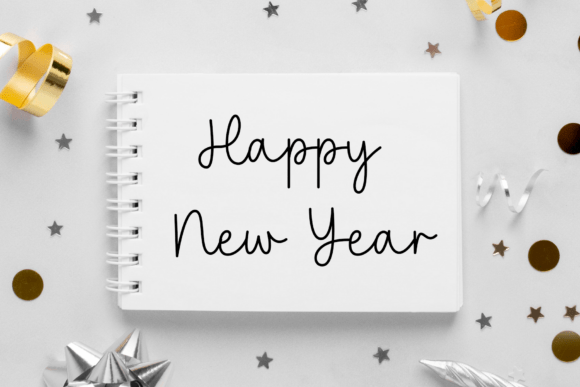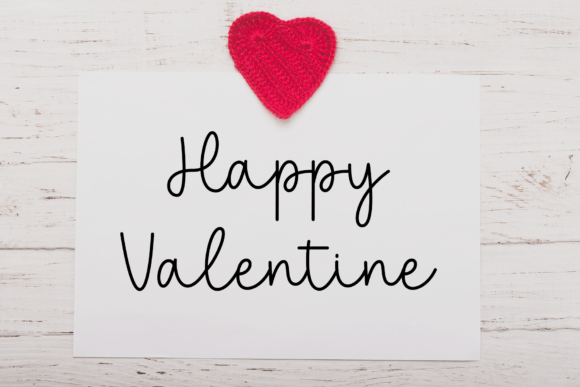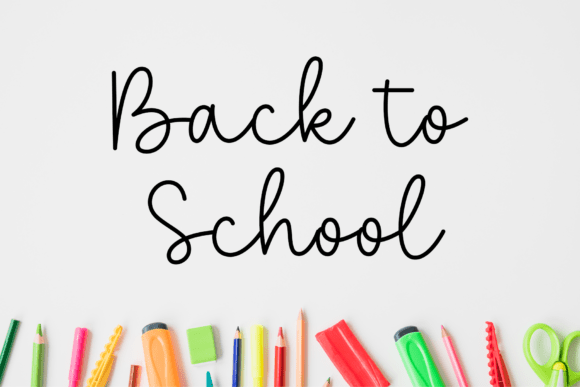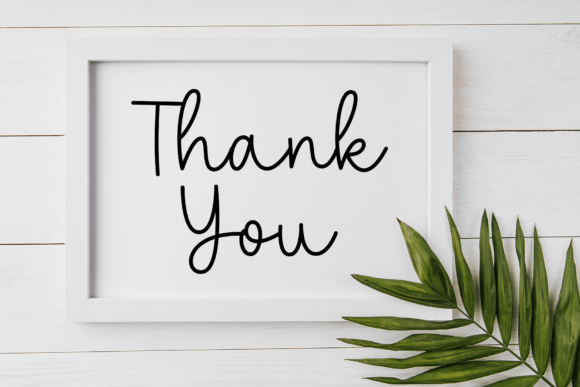
Discover the Charm of Belinda Font: A Sweet and Versatile Handwriting Typeface
Are you looking for a font that can add a touch of warmth and personality to your design projects? Look no further than the Belinda font. This beautiful typeface offers a sweet, rhythmic flow that captures the essence of a natural, lived-in handwriting style. With its unique blend of elegance and imperfection, Belinda font is perfect for designers and crafters who want to add a personal touch to their work.
The Characteristics of Belinda Font
So, what makes Belinda font so special? One of its defining features is its “imperfect” dance, where the letters vary slightly in height to mimic the charm of a real ink pen on paper. This subtle variation gives the font a sense of movement and energy, making it feel more dynamic and engaging. The letters in Belinda font also have a clean and stylish looped design, which adds to its elegance and sophistication.
One of the best things about Belinda font is its versatility. It can be used in a wide range of design projects, from luxury perfume bottles to simple thank-you notes. The font looks beautiful in large sizes, making it perfect for fashion editorial headers and signature logos. At the same time, it’s also elegant and refined in smaller sizes, making it suitable for use on organic food packaging and other types of product labels.
Perfect for Earthy Color Palettes and Textured Backgrounds
Belinda font has a warm and inviting feel that makes it a great pairing for earthy color palettes and textured backgrounds. The font’s natural, handwritten aesthetic complements organic colors like green, brown, and beige, creating a sense of harmony and balance. When paired with textured backgrounds, Belinda font adds a touch of sophistication and elegance, making it perfect for use in design projects that require a more rustic or vintage feel.
Add a Personal Touch to Your Design Systems
One of the best things about Belinda font is its ability to add a personal touch to professional design systems. The font’s handmade aesthetic gives it a “homemade” feeling that’s hard to replicate with more formal typefaces. At the same time, however, Belinda font is still highly sophisticated and elegant, making it suitable for use in high-end design projects. Whether you’re a designer, crafter, or DIY enthusiast, Belinda font is a great choice for anyone looking to add a touch of personality to their work.
Using Belinda Font in Your Design Projects
So, how can you use Belinda font in your design projects? Here are a few ideas to get you started:
- Use Belinda font as a header font for fashion editorials, blogs, and websites.
- Create a signature logo for your business or brand using Belinda font.
- Add a personal touch to your product labels and packaging with Belinda font.
- Use Belinda font to create beautiful, handmade-style stationery and greeting cards.
- Pair Belinda font with earthy color palettes and textured backgrounds for a unique and rustic look.
In conclusion, Belinda font is a beautiful and versatile typeface that offers a unique blend of elegance and imperfection. With its sweet, rhythmic flow and clean, stylish loops, Belinda font is perfect for designers and crafters who want to add a personal touch to their work. Whether you’re creating luxury perfume bottles, simple thank-you notes, or product labels, Belinda font is a great choice for anyone looking to add a touch of warmth and personality to their design projects.